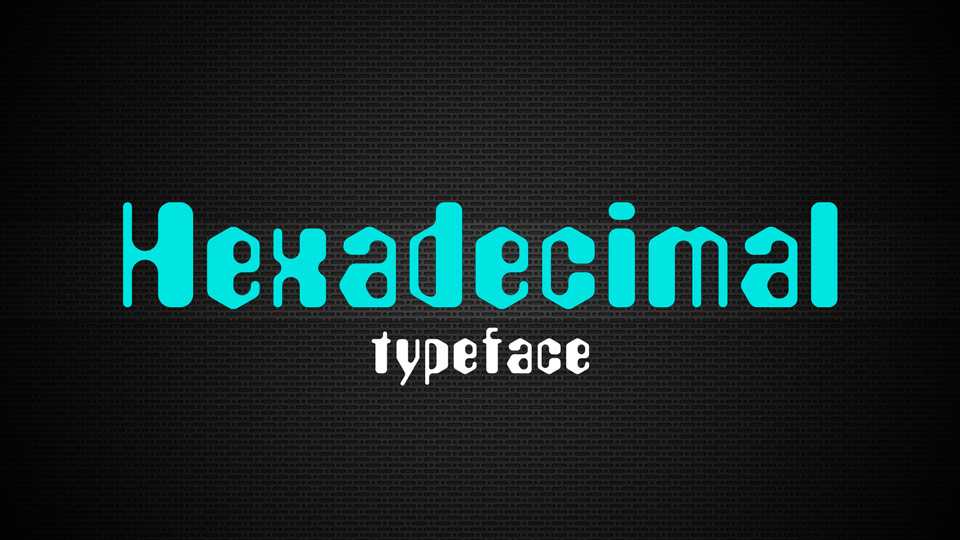
Download Hexadecimal font, a digital, retro sci-fi style typeface, inspired by the iconic font “Countdown” but instead of being almost entirely rectangular, it relies more on hexagons.
Designer: Benjamin Blåholtz